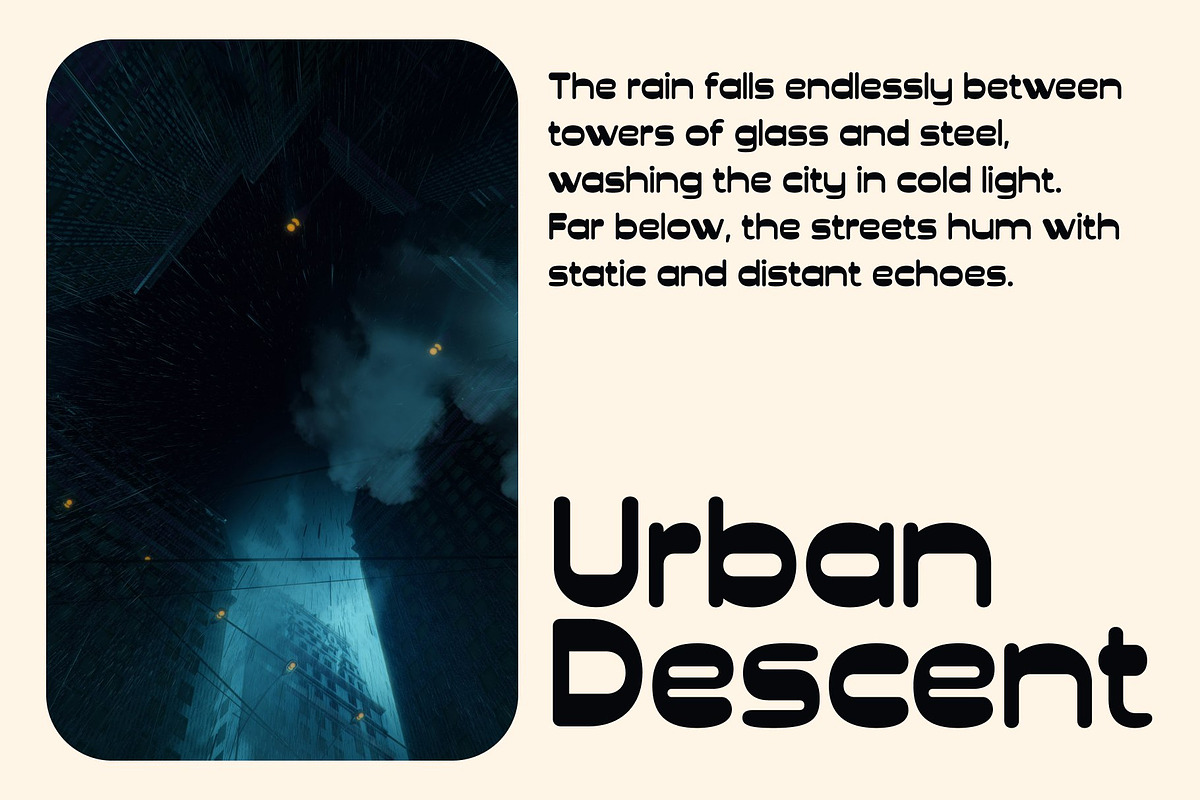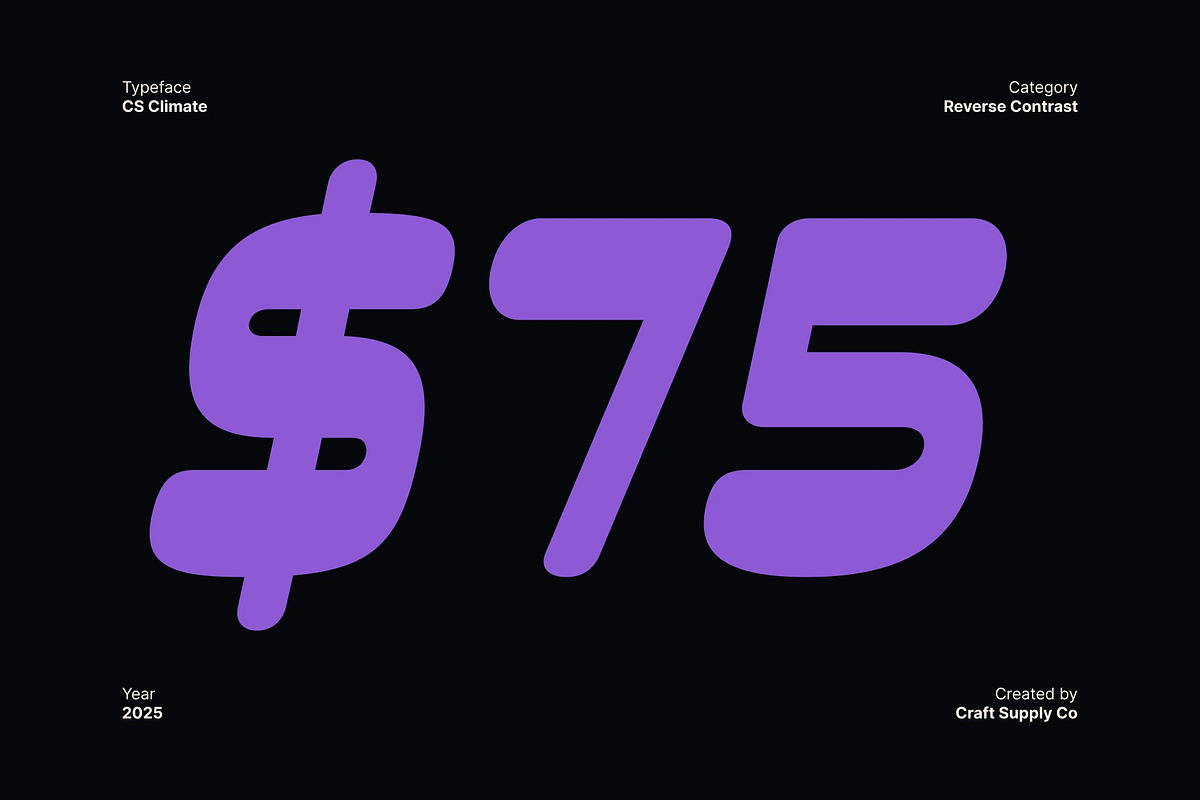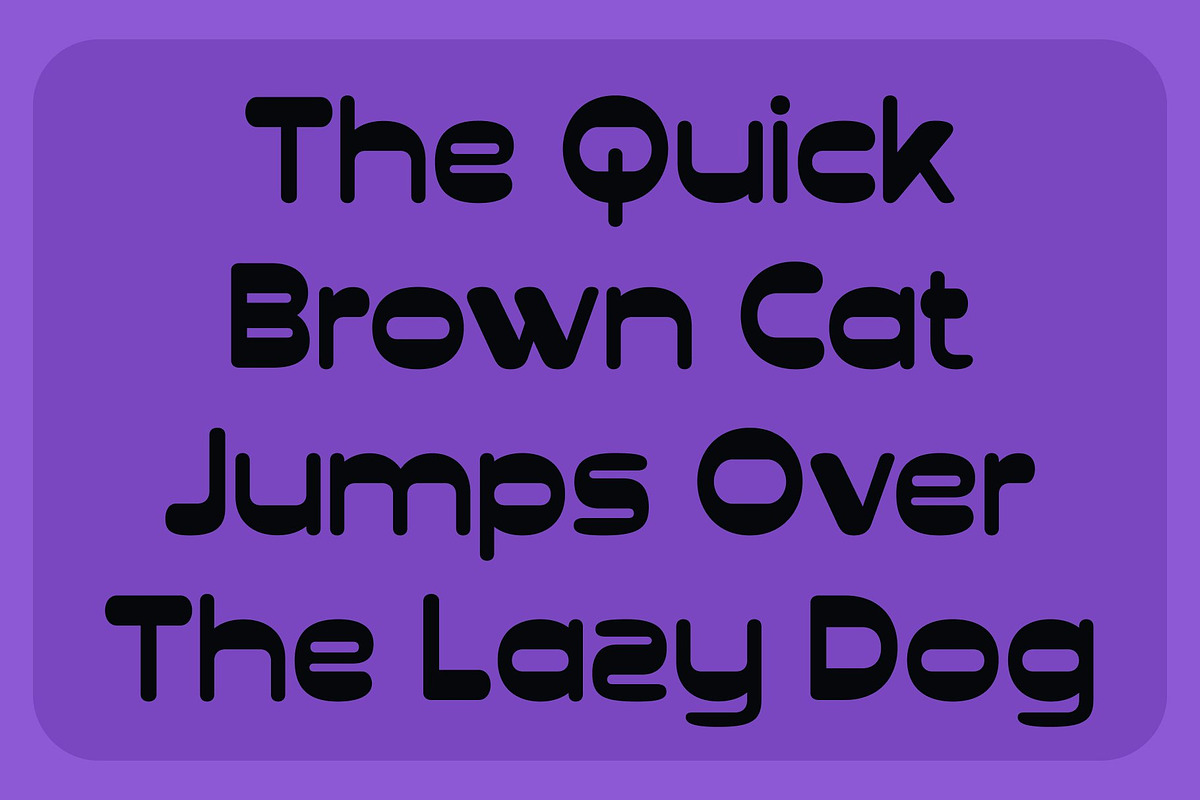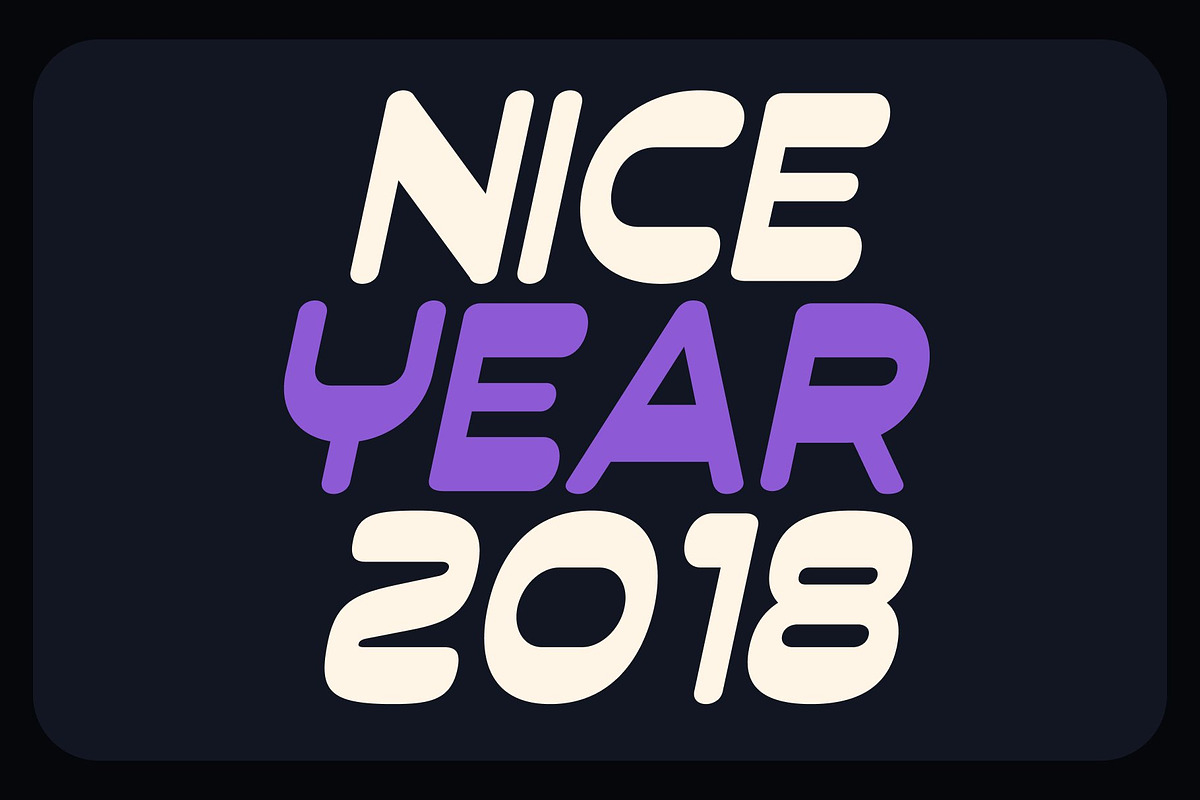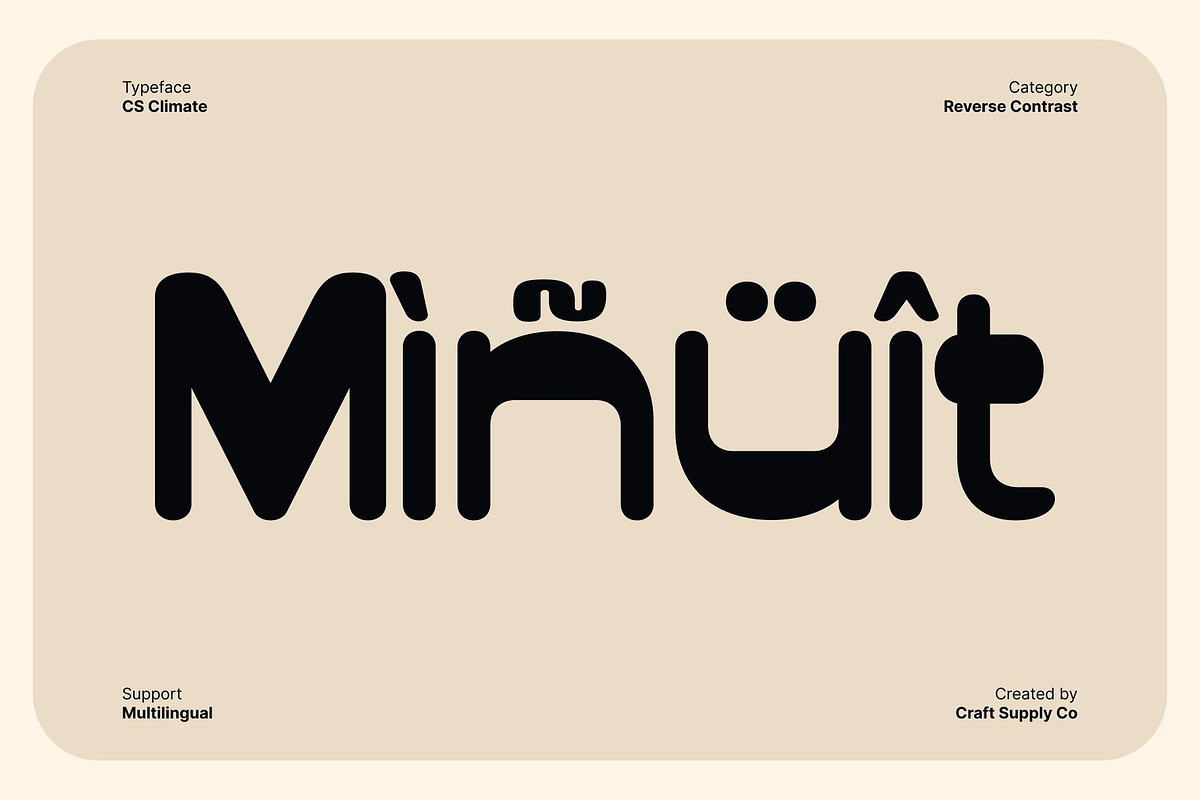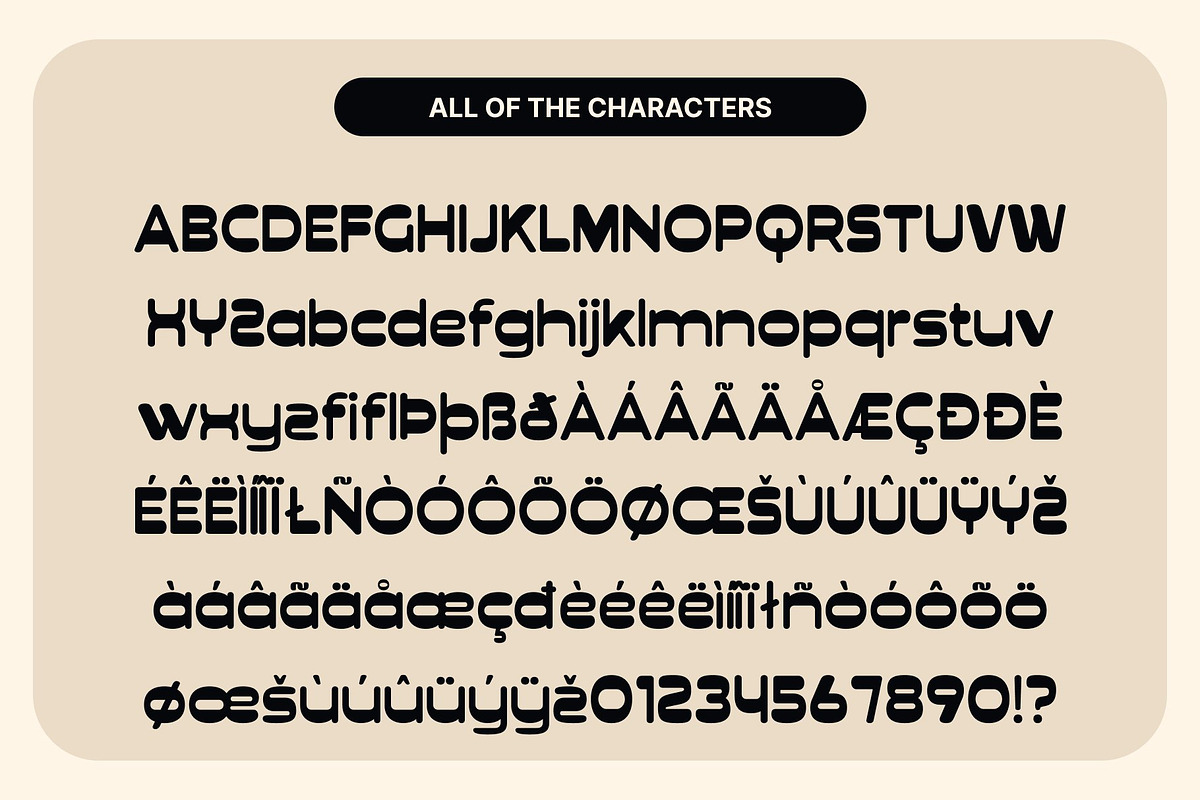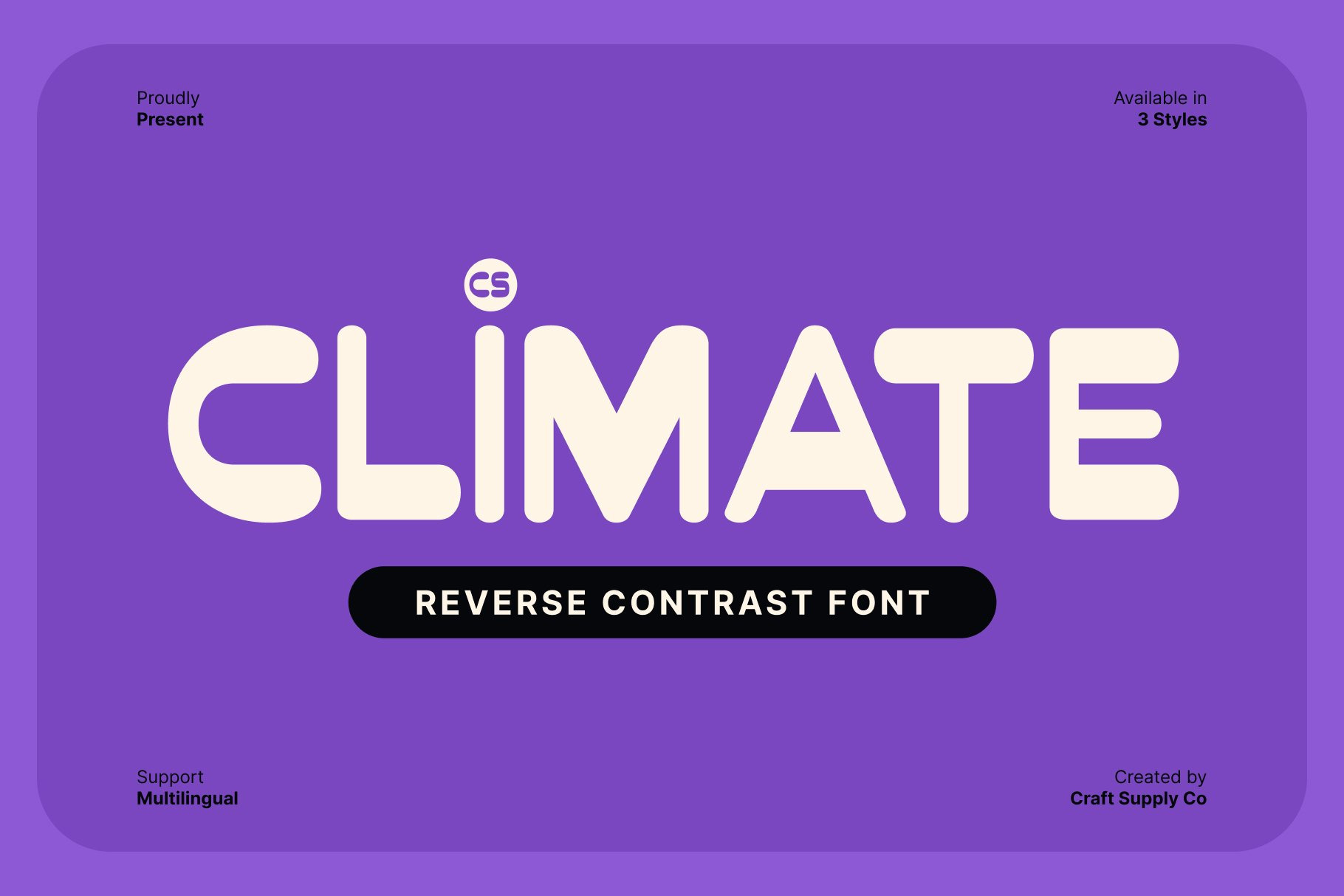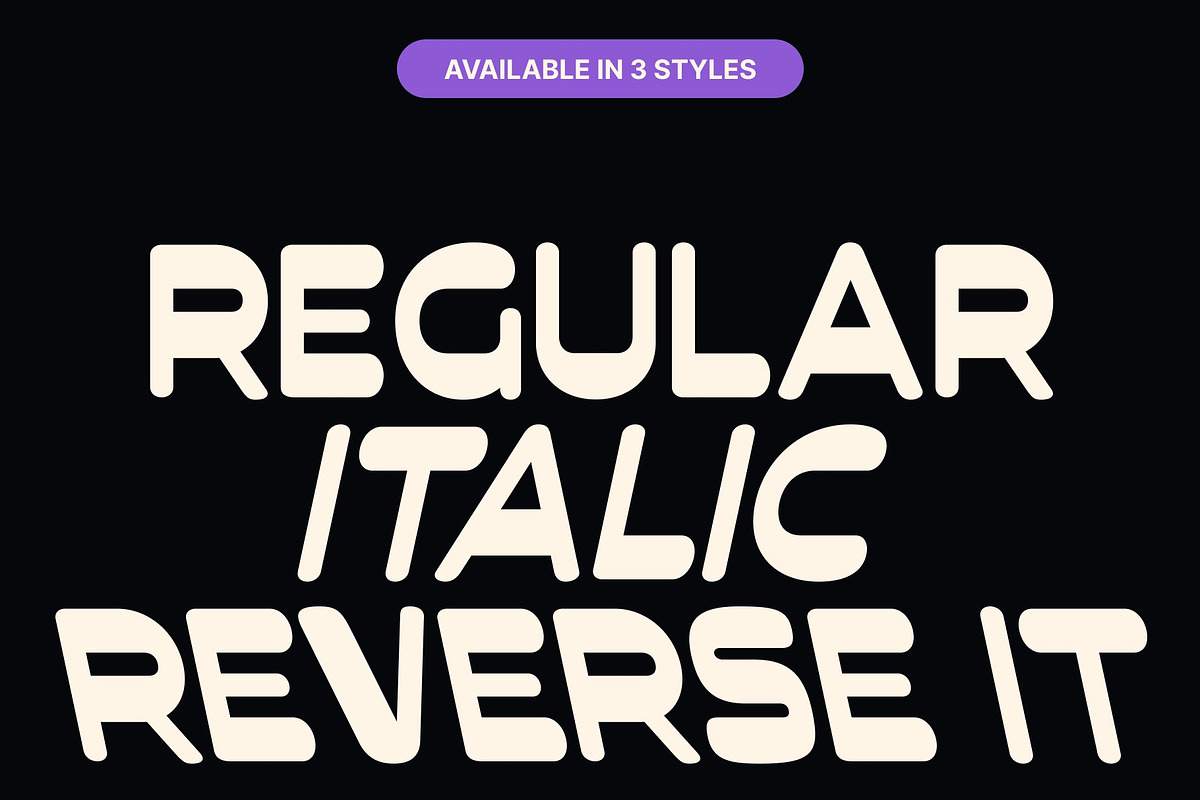
CS Climate – Reverse Contrast Font
CS Climate – Bold Modernity in Reverse Contrast: Contemporary Sans Serif Font with Rounded Modular Aesthetics
Bold and Stylish Modern Design This is a reverse contrast sans serif font that merges bold innovation with refined structure. Its modern yet stylish form commands attention while maintaining a professional aesthetic. The font’s unique weight distribution gives it a distinct personality, perfect for projects that demand confidence and originality.
Rounded and Modular Appeal With rounded edges and modular shapes, this font brings balance and rhythm to every composition. The smooth curves soften its bold geometry, creating a harmonious blend of technical precision and modern warmth. This makes it ideal for designers who seek a fresh and contemporary tone that still feels approachable.
Inspired by Classic Design Movements Drawing inspiration from mid century and industrial design, this font celebrates the timeless harmony between form and function. Its reverse contrast gives a subtle nod to vintage typography while remaining firmly rooted in modern aesthetics making it perfect for editorial layouts, posters, and identity design.
Perfect for Distinctive Branding and Promotion Whether used for brand logos, packaging, or visual campaigns, this font delivers strong visual impact with effortless sophistication. Its versatile style adapts easily to both digital and print media, ensuring your message stands out with clarity, creativity, and modern charm.